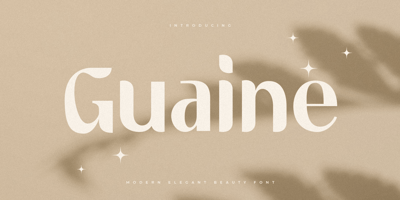
Guainne Font Family was designed by Zamroni Hamzah and published by Sensatype Studio. Guainne contains 1 styles and family package options. A Modern Classy Beauty Elegant Font that we created special for Luxury and Fashion branding needs, And specially for this font, We prepared any alternate characters to help you create unlimited variations for your creative needs.Guaine – Modern Beauty Elegant Font ready with: Any options to get creative variations (combination of Any Alternates) Preview as a inspirations that you can do with Guaine font Ready with Lowercase and Uppercase characters Wish you enjoy our font. 🙂